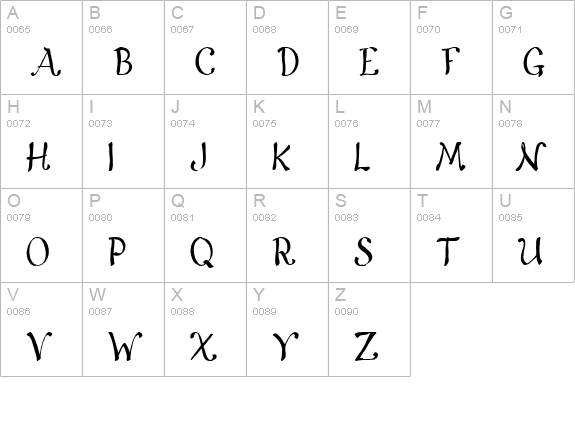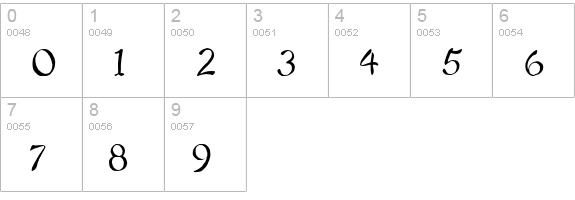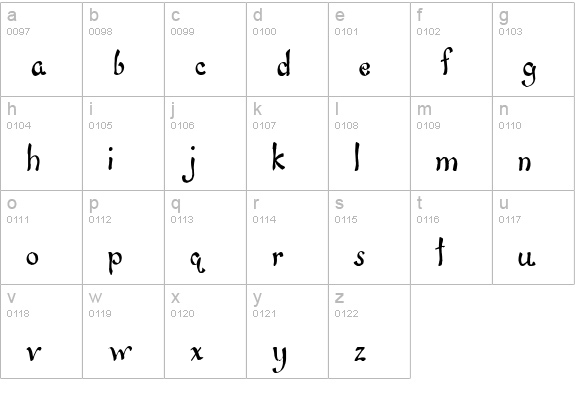
CK Kimono Font Details
Introducing CK Kimono font - a whimsical and elegant typeface that exudes charm and sophistication. Inspired by traditional Japanese design elements, this font features graceful strokes and intricate details that make it perfect for adding a touch of elegance to any project. CK Kimono font is not only visually stunning but also incredibly versatile. Whether you're creating invitations, branding materials, or social media graphics, this font will surely make your designs stand out. And the best part? CK Kimono font is completely free to download at FontsMarket.com. So go ahead and elevate your designs with this beautiful and unique typeface today!